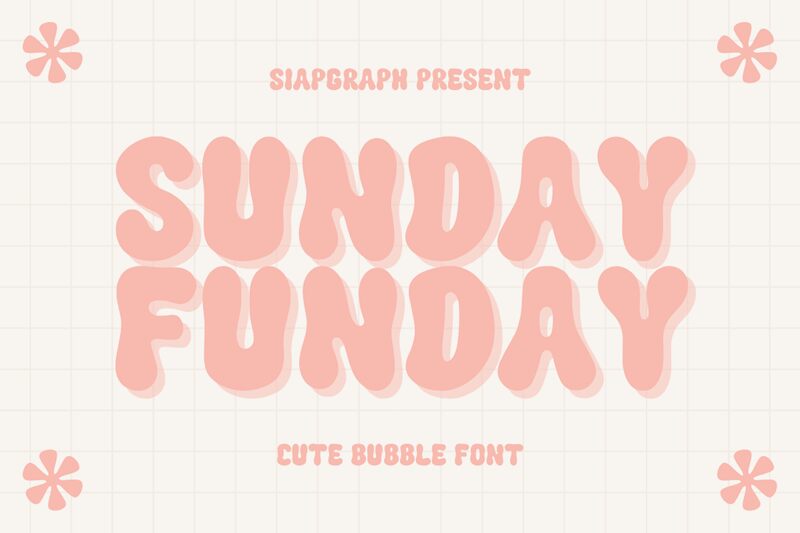
Sunday Funday font by Siapgraph is a free font with a groovy style. With a rounded and soft look, this inviting font is retro-inspired, cheerful, informal, youthful, and approachable. With a touch of nostalgia, Sunday Funday is eye-catching and whimsical. Its friendly style makes it appropriate when an inviting presence is needed.